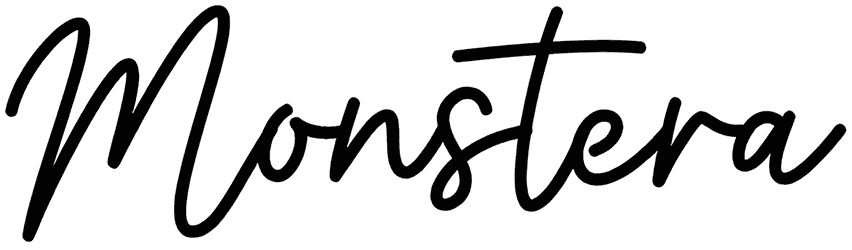
Monstera Font
Time is your most precious asset, and a cursive script font such as Monstera would save a considerable amount of your time, so we strongly recommend that you pick up this masterpiece for your business cards, magazines, packaging, invitations, or flyers.
Carrying a sense of personalization, innovation, freshness, and precision would make it really tempting. If you want your artwork to look shining, never overlook this handwritten font.